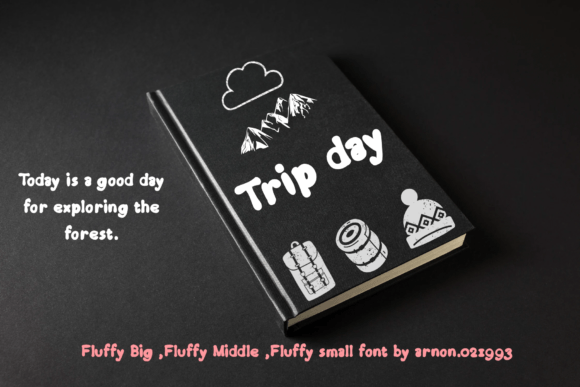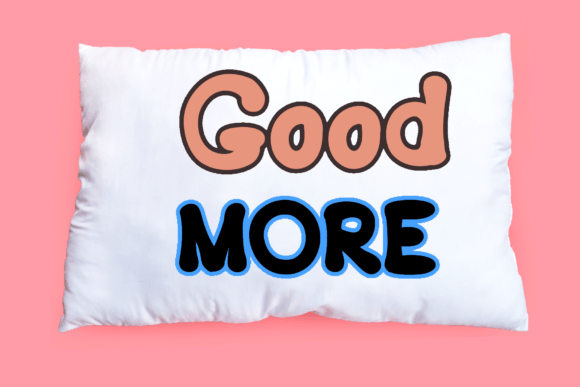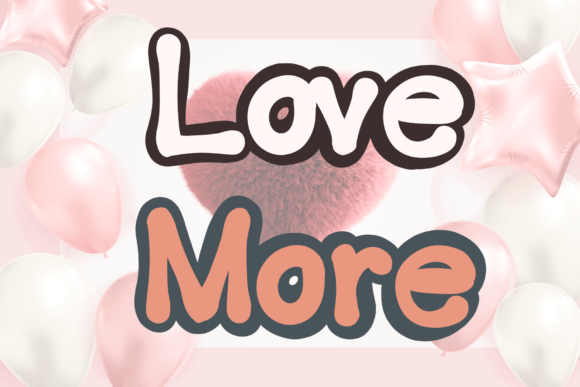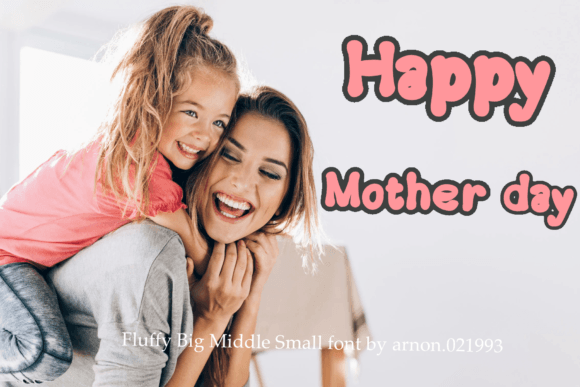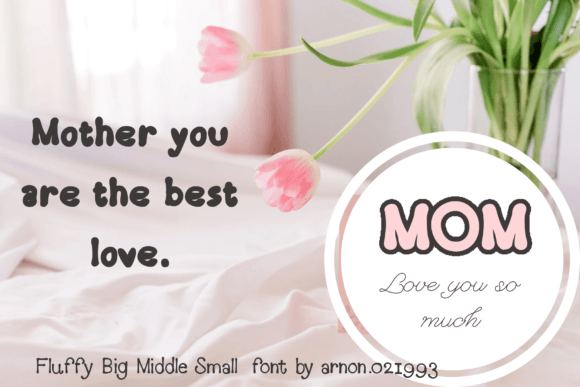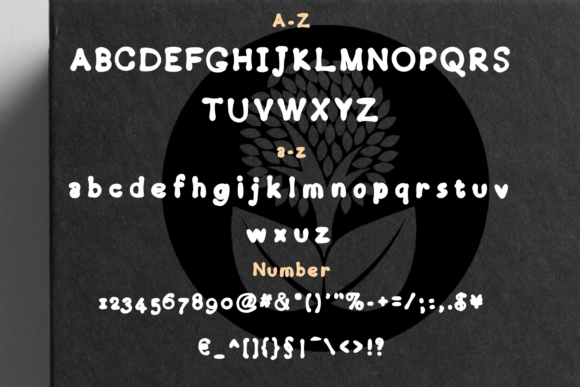
Designing with Joy: The Power of Fluffy Font
Have you ever stared at a blank page, pencil in hand, and thought, “I want to create something that brings a smile to people’s faces?” That’s exactly what happens when you discover the perfect font – one that makes your design pop, and your message shine. For designers seeking to add a playful twist to their work, the Fluffy Font is a game-changer.
This delightful display font is specifically designed for kids’ themes, with a cartoon-inspired style that’s hard to resist. Its rounded corners and chunky, bold look bring an instant sense of joy and excitement to any project. Whether you’re creating a poster, game title, or magazine layout, the Fluffy Font is sure to make a lasting impression.
With the Fluffy Font, designers can breathe new life into their work, making it more engaging and fun for their audience. Its versatility and charm make it an invaluable addition to any design toolkit.
Fluffy Font Key Features
- Font Family: Fluffy Font is a sans-serif font family, designed to provide a clean and modern look.
- Unique Characteristic: The font’s distinctive rounded edges and subtle curves give it a soft, approachable feel, making it perfect for use in branding, advertising, and editorial content.
Fluffy Font Review
Overall, I think the Fluffy Font has a lot of potential, but it also comes with some limitations that might make it less suitable for certain projects. Here’s my honest take:
What works well: ✨ The font’s playful and whimsical feel is perfect for creating a child-friendly or youthful brand identity. The soft, rounded edges make it easy to read, even at smaller font sizes. ✨ The font’s versatility also makes it suitable for a wide range of applications, from digital interfaces to print materials.
What doesn’t work well: ⚠️ One major limitation is the font’s lack of scalability. While it looks great at medium to large font sizes, it can become blurry and lose its shape at smaller sizes. This might make it difficult to use for applications that require a lot of fine text, such as body text in a blog or article. ⚠️ Additionally, the font’s consistency can be inconsistent across different platforms, which might affect its overall look and feel.
Overall, I would recommend the Fluffy Font for projects that require a playful and approachable aesthetic. However, it’s essential to be aware of its limitations and use it judiciously to avoid any potential issues.
- Best for: Child-friendly brands, youth-focused projects, and applications that require a playful aesthetic.
- Not recommended for: Projects that require a lot of fine text or need a highly scalable font.
Fluffy Font is perfect for:
- Birthday cards and invitations
- Wedding stationery and decorations
- Children’s book illustrations and designs
- Branding and marketing materials for creative industries
Tips for Getting the Most Out of Fluffy Font
Use Fluffy Font in combination with other playful fonts to create a whimsical effect. Experiment with different font sizes and colors to add visual interest. Don’t be afraid to get creative and add custom designs to enhance the Fluffy Font’s unique charm.